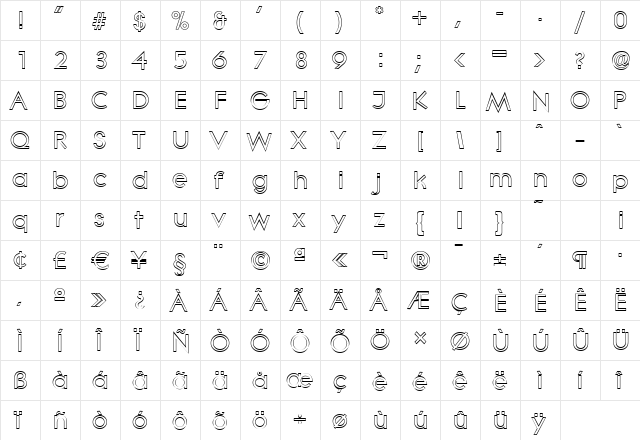
BradBeckerOutline Bold
Design Context for BradBeckerOutline Typeface
BradBeckerOutline is built around its visual character rather than neutral utility — its distinctive forms are designed to make an impression at display sizes. Its bold stroke weight gives it real presence on the page.
Font Pairing: Pair with a clean neutral sans-serif for body copy to let BradBeckerOutline's character lead without overwhelming the composition.
Pro Tip: Treat BradBeckerOutline as the centrepiece of your typographic hierarchy. One strong heading set in a decorative face can carry an entire layout.